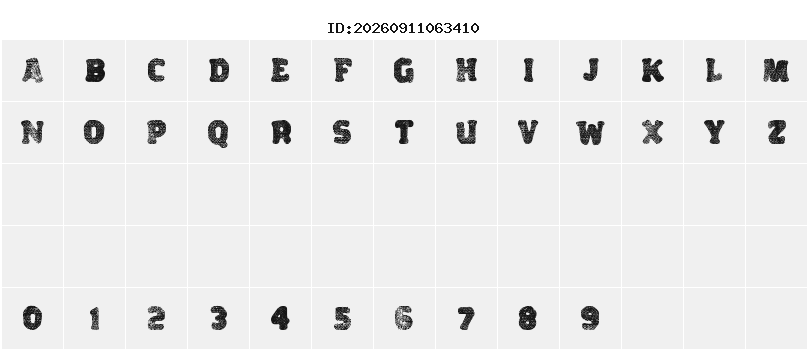
Variations.ttf
Variations Preview
• Font Name: Variations
• Designer: Imagex
About Variations.ttf
Variations.ttf is a modern, elegant sans-serif font designed for ultimate readability and visual harmony. Perfect for branding, headlines, web design, and print materials.